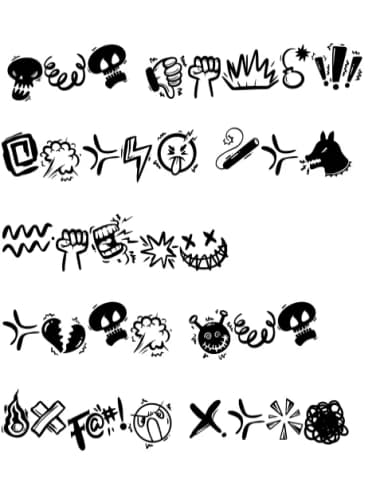
These hand-drawn, expletive-focused glyphs feel more like illustration than traditional type. That's what makes Swear Word distinctive: a dingbats font by onoborgol that trades conventional symbols for reaction icons and swear-word representations. Each character carries a sketchy, cartoon-like energy that's instantly recognizable and genuinely fun to deploy, especially in projects where attitude and humor carry real weight.
The font shines in work that needs irreverent personality without trying too hard. Comic book lettering and sound effect panels benefit from its voice. Greeting cards that push boundaries, sticker sheet designs for merchandise, indie game UI elements, and podcast cover art all find natural homes for this particular style. The outline vector approach gives designers real flexibility: layer the symbols over photography, texture them with patterns, use them in social media posts, or combine them with other typefaces without losing visual impact.
Swear Word Font is a versatile dingbats font that works for both headings and body text. Pair it with a contrasting sans-serif or serif font to add visual interest and a clear distinction between titles and body copy.
Swear Word Font
by onoborgol